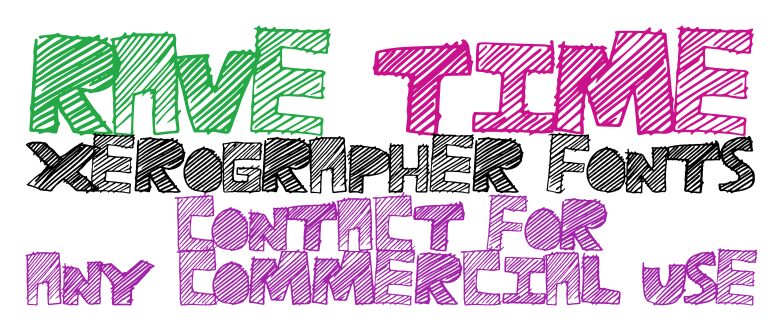
Rave Time from Xerographer Fonts is a free cartoon display font with oversized, uneven capitals and the unruly look of quick marker-drawn lettering. Thick black contours frame a dense diagonal hatch, and the shifting widths, tilted strokes, and bumped edges give each letter a restless silhouette.
Posters and flyers are its most convincing medium, especially for live music, skate events, and youth entertainment with a busy, noisy handmade theme. The striped fill can echo pen-and-ink illustrations or comic textures, making the lettering part of the artwork rather than a neutral caption. It is especially well suited to loud festival and concert titles.